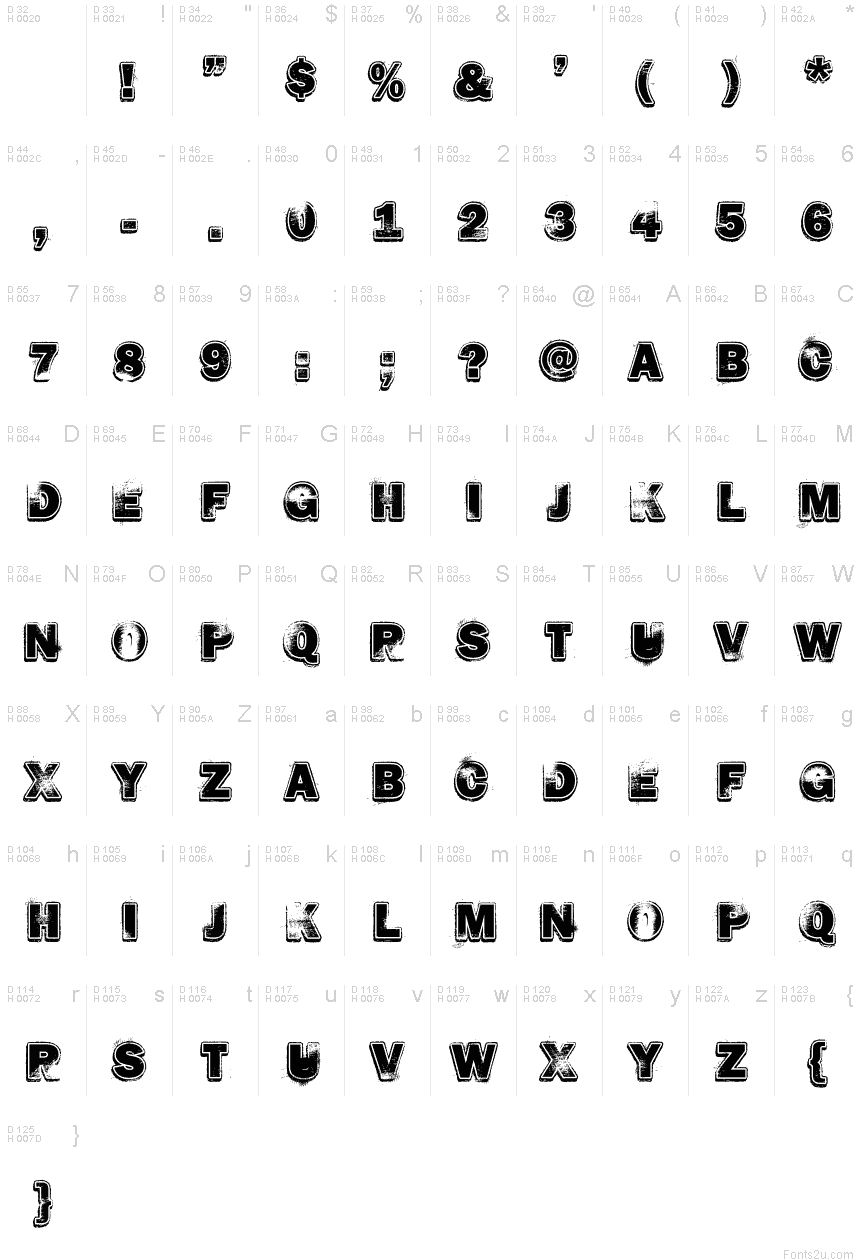
HARD ROCK
HARD ROCK font by Gyomsegs is a free eroded display typeface that looks like it’s been blasted by feedback and scraped across a concrete wall. Thick, blocky letters are punched through with gritty texture and rough edges, so every word hits like a distorted guitar chord. It’s bold, loud, and unpolished in the best way-perfect when you need text that feels genuinely scuffed and lived-in, not clean or corporate.
Using HARD ROCK, your titles instantly pick up a raw, underground energy that shines on gig posters, album covers, streetwear graphics, skate stickers, extreme sports branding, and YouTube thumbnails. This free font works best oversized, letting the distressed details breathe; pair it with a simple, neutral sans serif for body copy to keep everything readable while the headlines do the screaming.